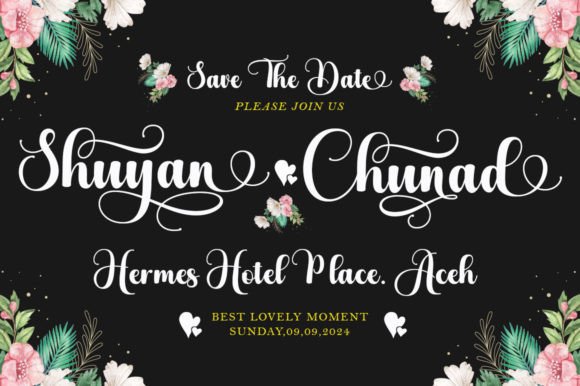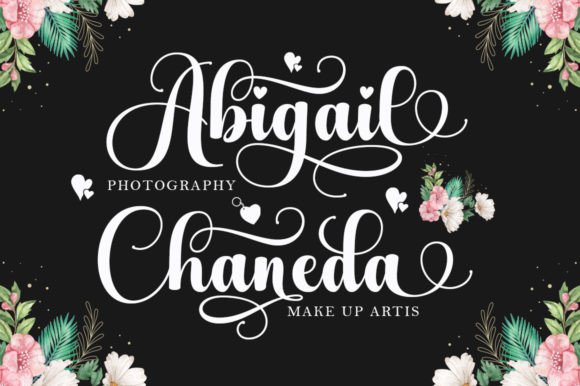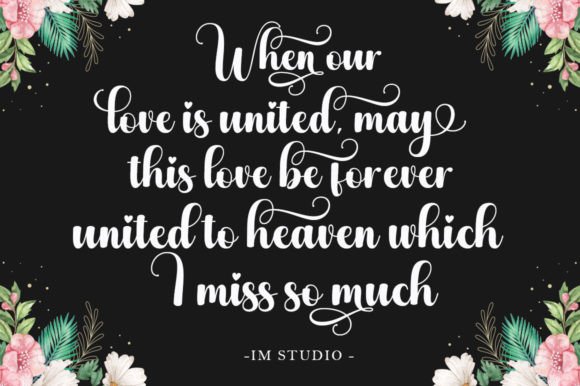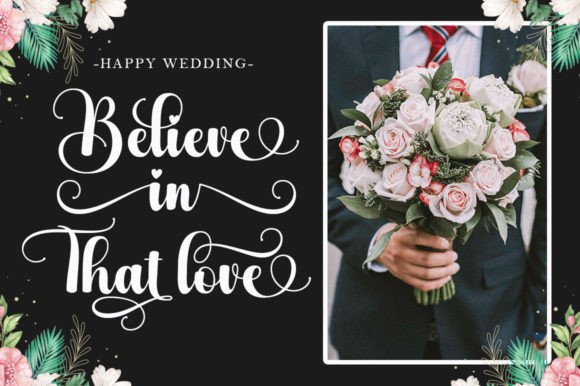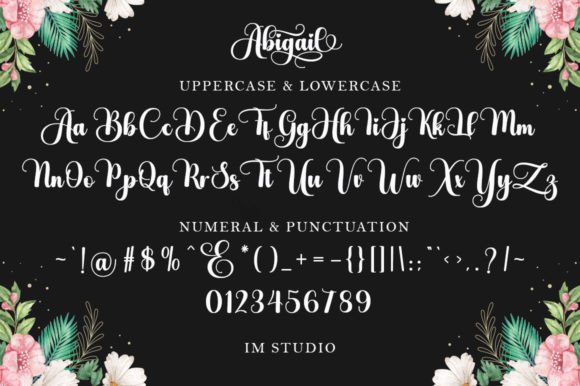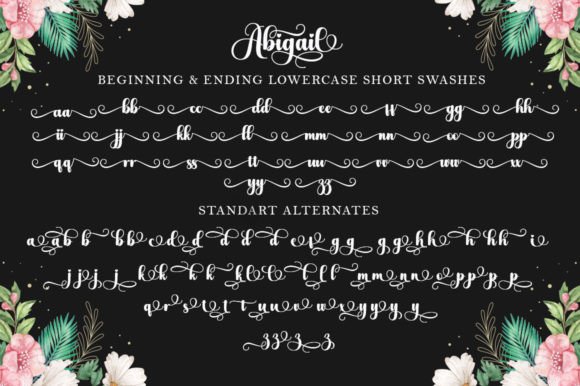
The Perfect Touch of Romance: Introducing Abigail Font
As a designer, there’s nothing quite like the thrill of bringing a creative vision to life. You’ve poured your heart and soul into a project, and it’s time to add that final flourish. For many of us, that means searching for the perfect font to elevate our design and leave a lasting impression. That’s where Abigail Font comes in – a stylish, refined font designed to add a touch of romance to any creation.
Whether you’re crafting a beautiful wedding invitation or creating a stunning headline for a magazine, Abigail Font is the perfect choice. Its elegant curves and classic lines will add a sophisticated touch to your design, making it stand out from the crowd. And with its PUA coding, accessing all glyphs and swashes is a breeze, giving you the freedom to get creative and experiment with different looks.
Abigail Font Key Features
- Font Size: The font comes in a single size, but it’s highly scalable and suitable for various font sizes.
- Unique Characteristics: This elegant script font features connected letters, swashes, and flourishes, making it ideal for creative and artistic purposes.
- Font Style: The font comes in a single style, but it’s highly versatile and can be used for various applications, including invitations, wedding stationery, and branding materials.
Abigail Font Review
As a designer, I’ve had the chance to work with the Abigail font, and I must say it’s a unique and intriguing choice. There are a few things that really stand out to me.
- ✨ Elegant, cursive script: Abigail has a beautiful, flowing feel to it, making it perfect for titles, headings, and any text that needs a touch of sophistication.
- ✨ High legibility: Despite its cursive nature, Abigail is surprisingly easy to read, even at smaller font sizes.
- ✨ Wide language support: Abigail supports a wide range of languages, making it a versatile choice for projects that require multilingual text.
However, as with any font, there are some limitations to consider.
- ⚠️ Limited versatility: While Abigail is great for certain types of text, it may not be the best choice for body text or other situations where a more straightforward font is needed.
- ⚠️ May be too ornate: Some users may find Abigail’s cursive script too decorative or over-the-top, which could detract from the overall design.
Overall, I think Abigail is a solid choice for designers who want to add a touch of elegance and sophistication to their projects. While it may not be the best fit for every situation, it’s definitely worth considering for the right projects.
Tips for Getting the Most Out of Abigail Font
Abigail Font is a beautiful, elegant script font perfect for wedding invitations, quotes, and other decorative text. To get the most out of it:
- Use it sparingly to add emphasis to important text.
- Pair it with a clean sans-serif font for maximum contrast.
Abigail Font is commonly used for:
- Quotes and inspirational graphics.
- Decorative headings and titles.
Alternatives to Abigail Font
Lato is a modern sans-serif font designed by Łukasz Dziedzic. It is ideal for use in digital products, such as websites and mobile applications, where a clean and readable font is required. Lato is more versatile and has a wider range of weights compared to Abigail Font, making it suitable for a variety of design projects.
Montserrat is a sans-serif font designed by Julieta Ulanovsky. It is a great choice for use in headings and titles due to its geometric and modern design. Compared to Abigail Font, Montserrat has a more condensed and urban feel, making it suitable for designs that require a strong and edgy aesthetic.
Merriweather is a classic serif font designed by Eben Sorkin. It is ideal for use in body text and print materials, such as books and magazines, where a traditional and elegant font is required. Merriweather is more formal and traditional compared to Abigail Font, making it suitable for designs that require a sophisticated and classic aesthetic.